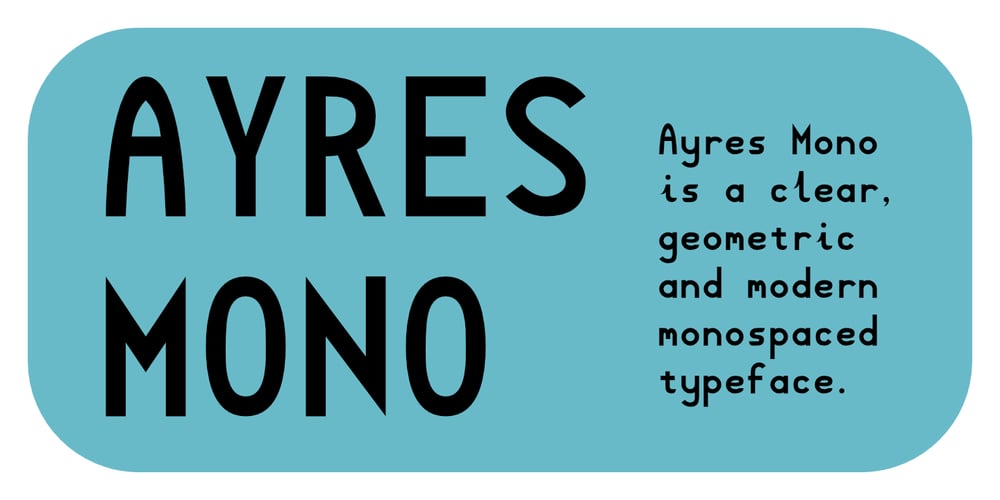
Ayres Mono
Ayres Mono font
Ayres Mono Font Family was designed by Colin Ayres and published by Ayres. Ayres Mono contains 2 styles and family package options. The Ayres Mono font is a clear and geometric mono-spaced font.It is easily legible and has Regular and Bold variants.It has keyboard friendly characters for drawing curved boxes and tables from the ‘curly brackets’ characters.These can be laid out in the text with the even spacing.It also features easy to use simple maths and music symbols.Some punctuation marks are made half-spaced along with a half-space key for more layout options. It supports many languages including English, French, Spanish, Italian, Portuguese, German, Dutch, Norwegian, Icelandic, Welsh, Finnish, Polish, Danish, Swedish, Hungarian, and Mauri. It includes symbols such as a tick, card suits and smiley face.The geometric layout is ideal for guitar tablature and text art.